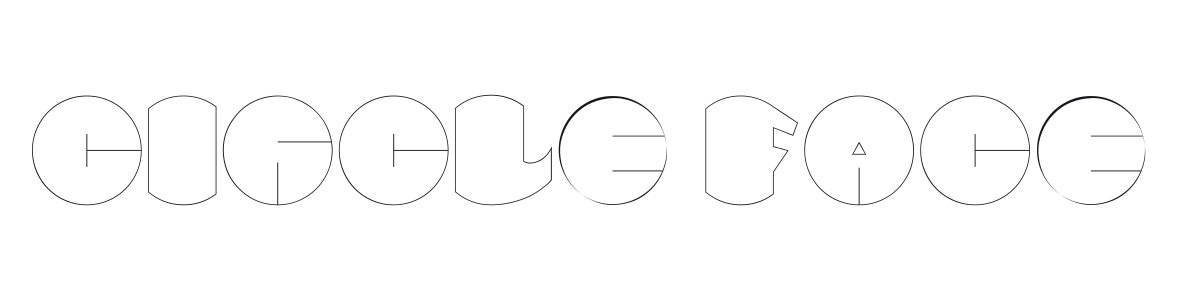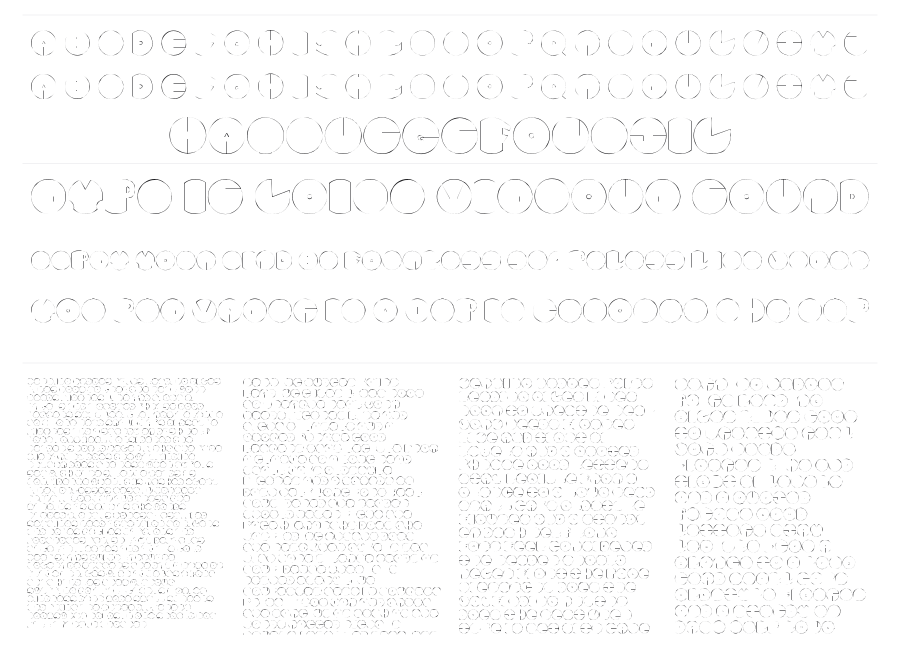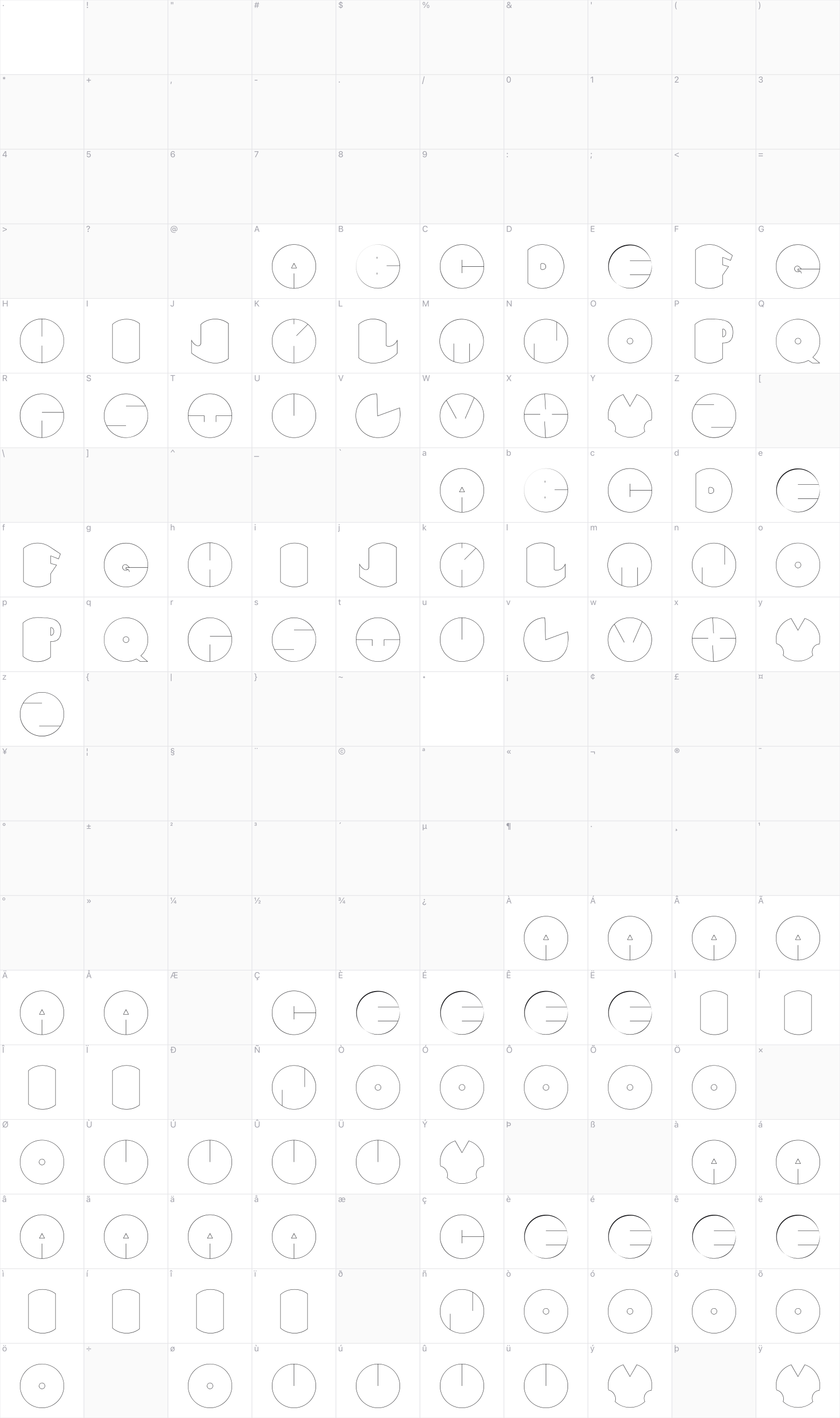
Circle Face
by Sam Stein
Circle Face is a novelty display font where every character lives inside an identically sized circle, with thin outline strokes carving recognizable letters from the circular frame. The hairline-weight construction gives it a delicate, almost diagrammatic quality. It works best at large sizes where the clever circular concept can be appreciated.